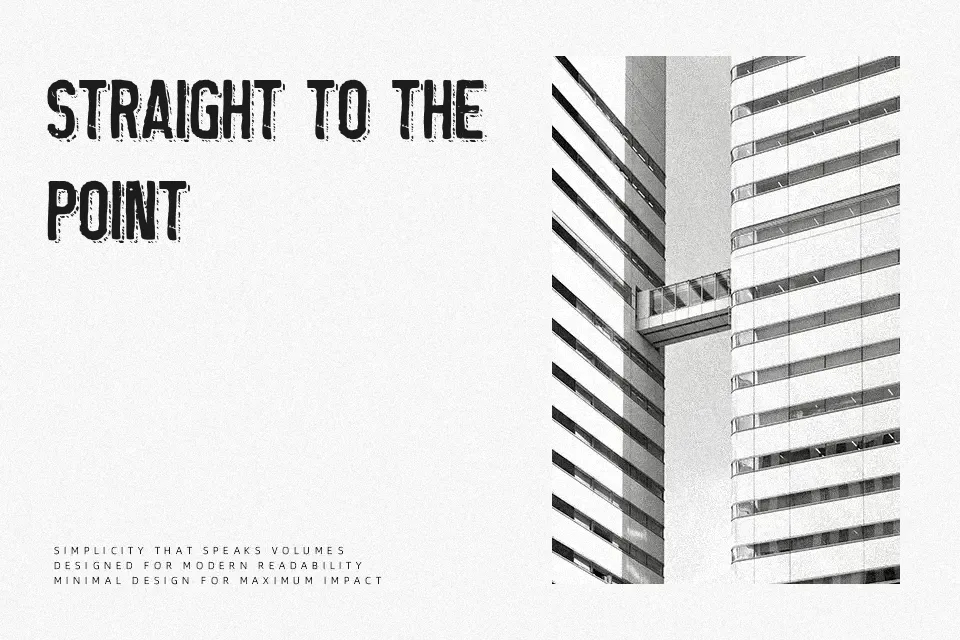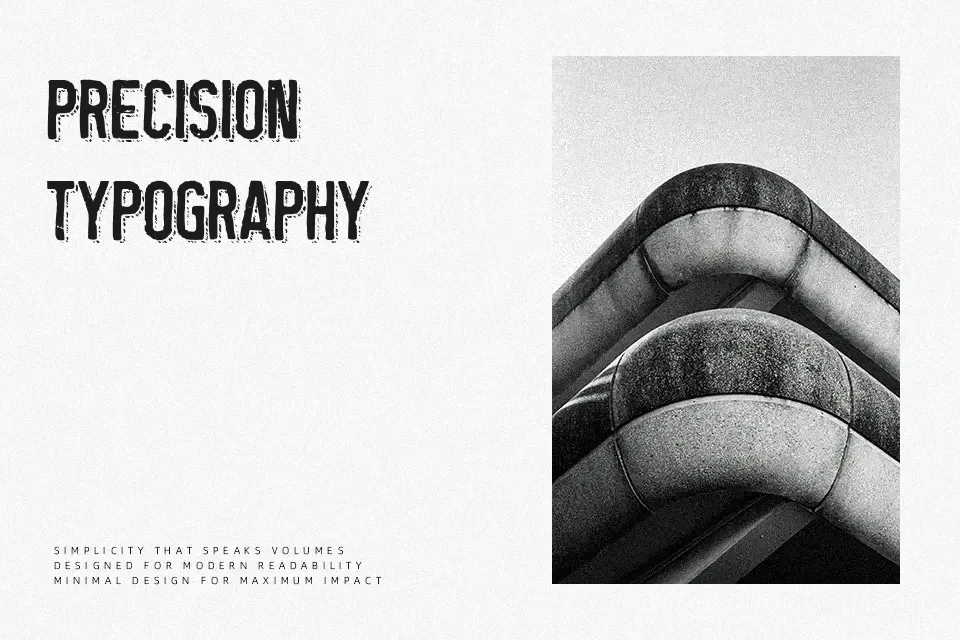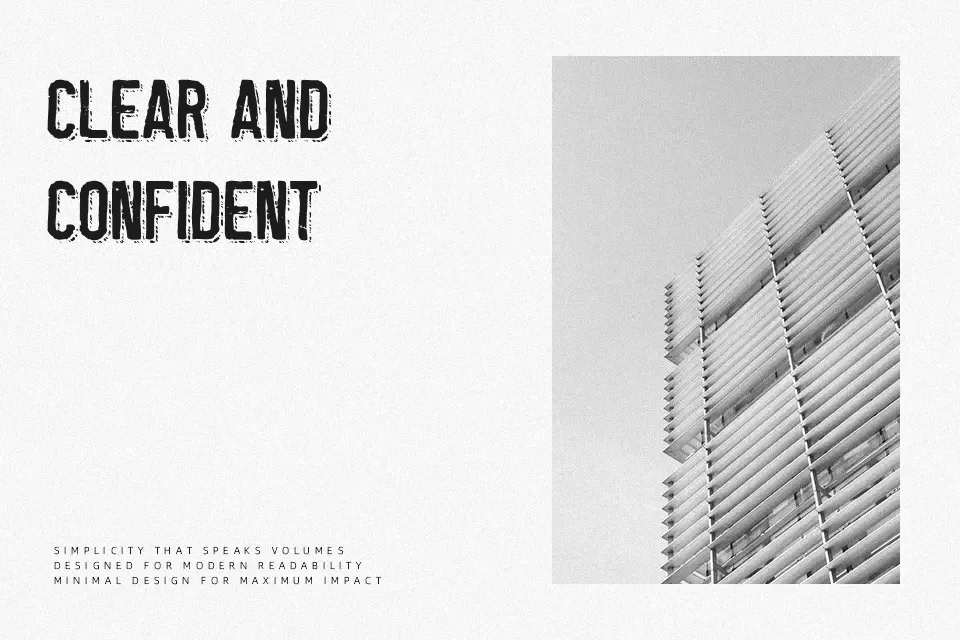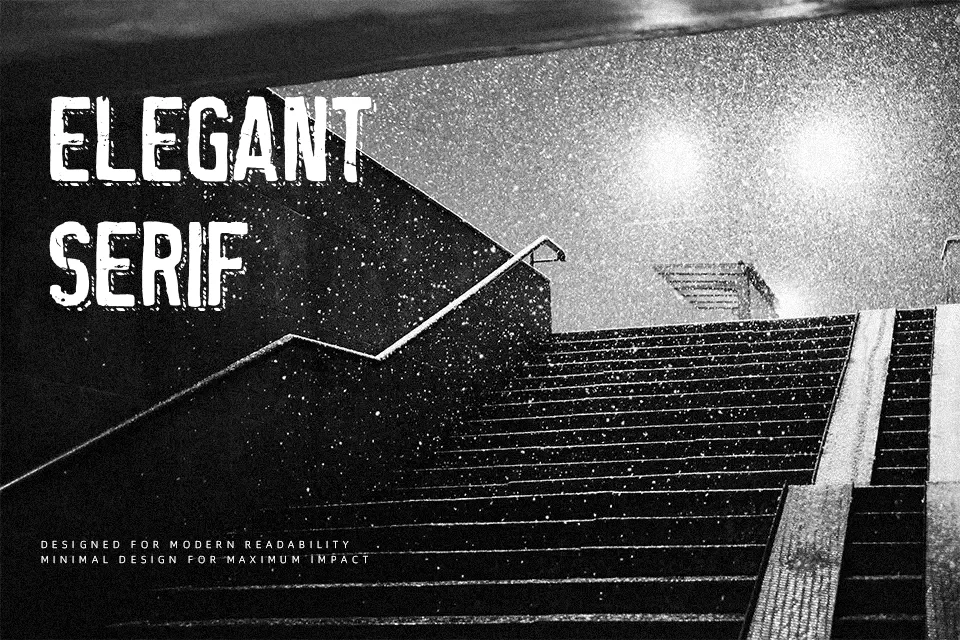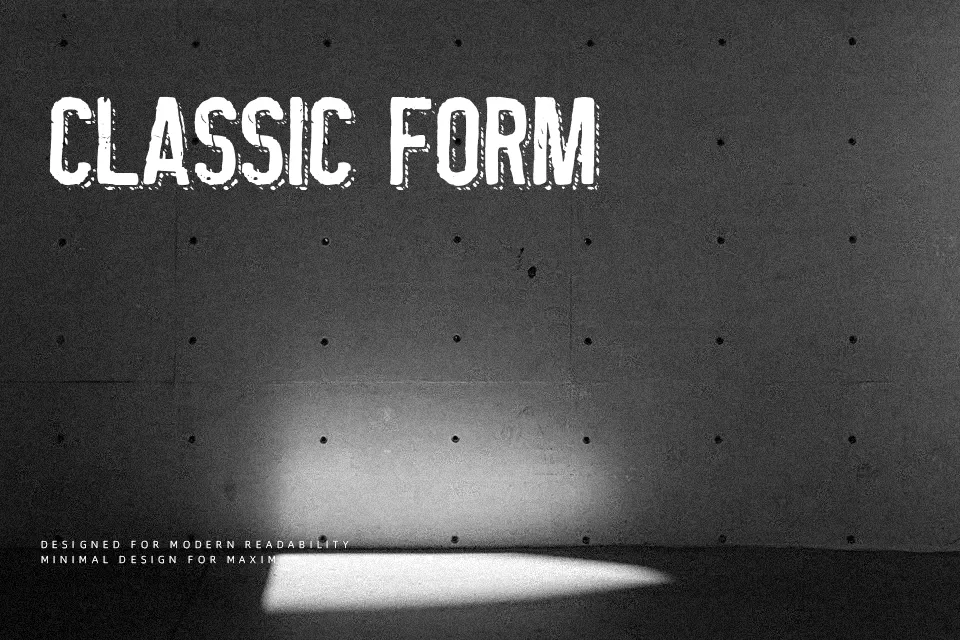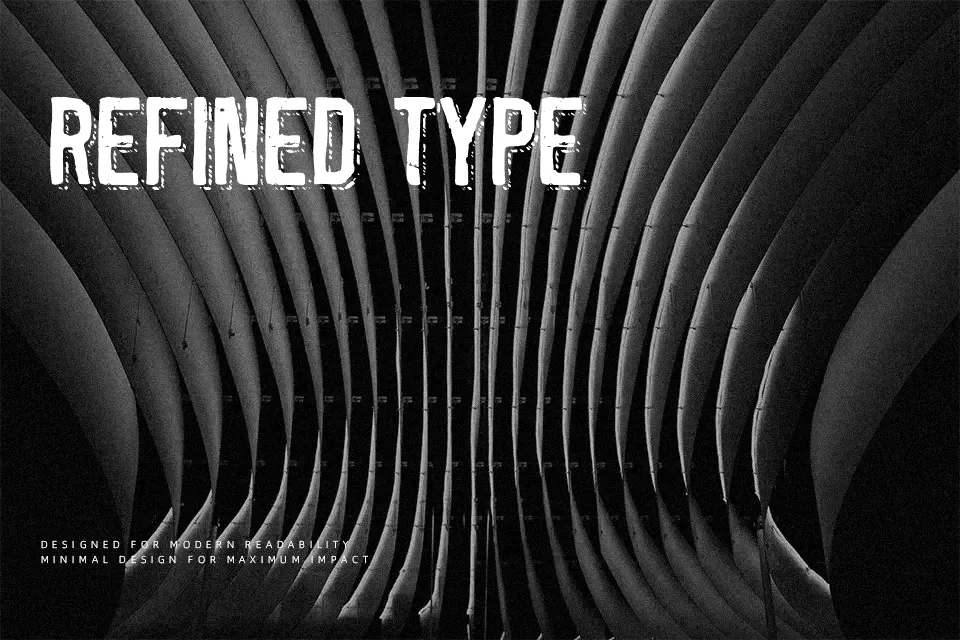
Silent Broadcast Font
Silent Broadcast Font utilizes an eroded display style characterized by weathered edges, heavy stroke weights, and irregular distressed texturing across its uppercase forms. The solid underlying skeleton maintains balanced proportions, though the tight character spacing and decayed contours focus attention primarily on large display settings. These fractured silhouettes provide strong visual punch for horror movie titles, industrial branding, and edgy poster headlines. However, the heavy degradation substantially reduces legibility at small sizes, making continuous body text and detailed UI labels unreadable. The textured decay adds authentic grit, but designers must reserve this typeface strictly for high-impact focal points.
Best For: music festival posters,grunge apparel graphics,horror movie titles,industrial packaging
Not Ideal For: continuous body text,mobile user interfaces,long editorial paragraphs,small caption labels
Perfect for gaming, headline, and music, with a dark and decorative style.